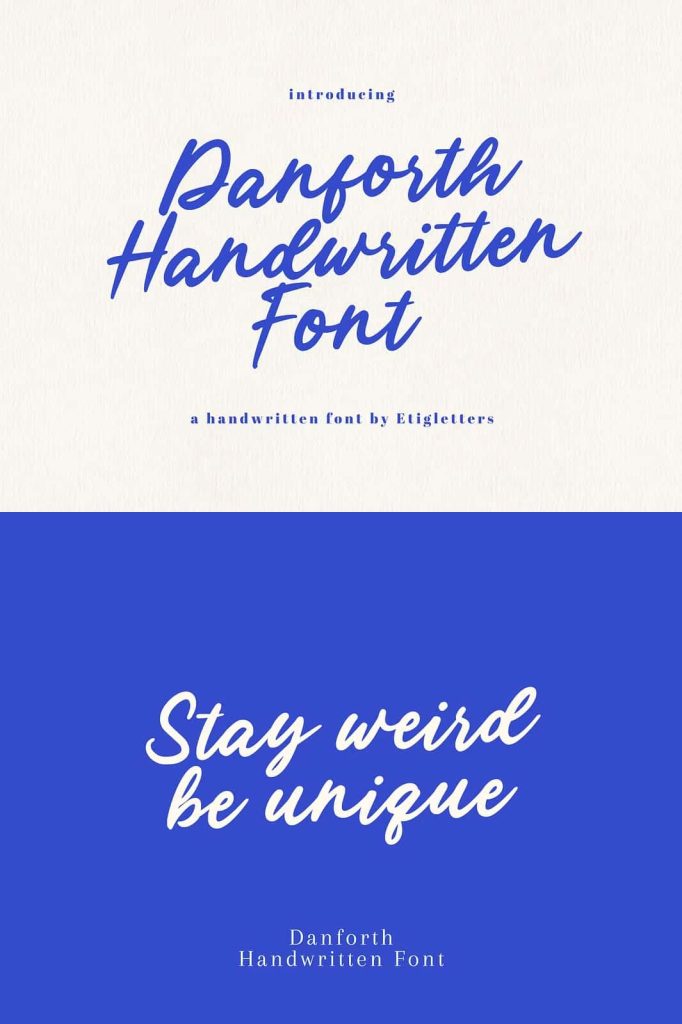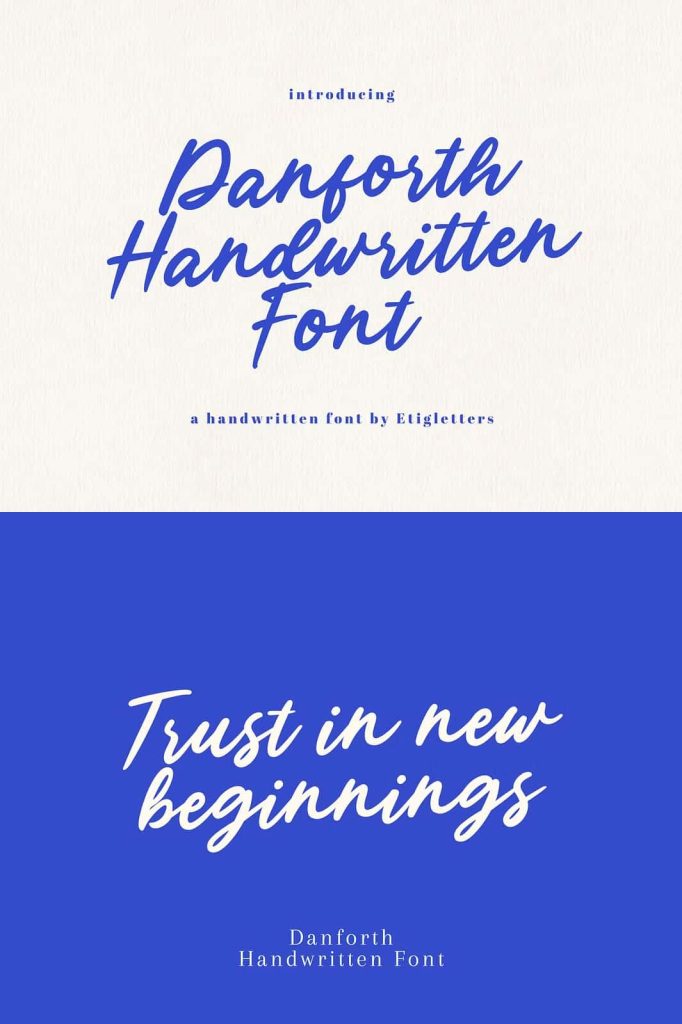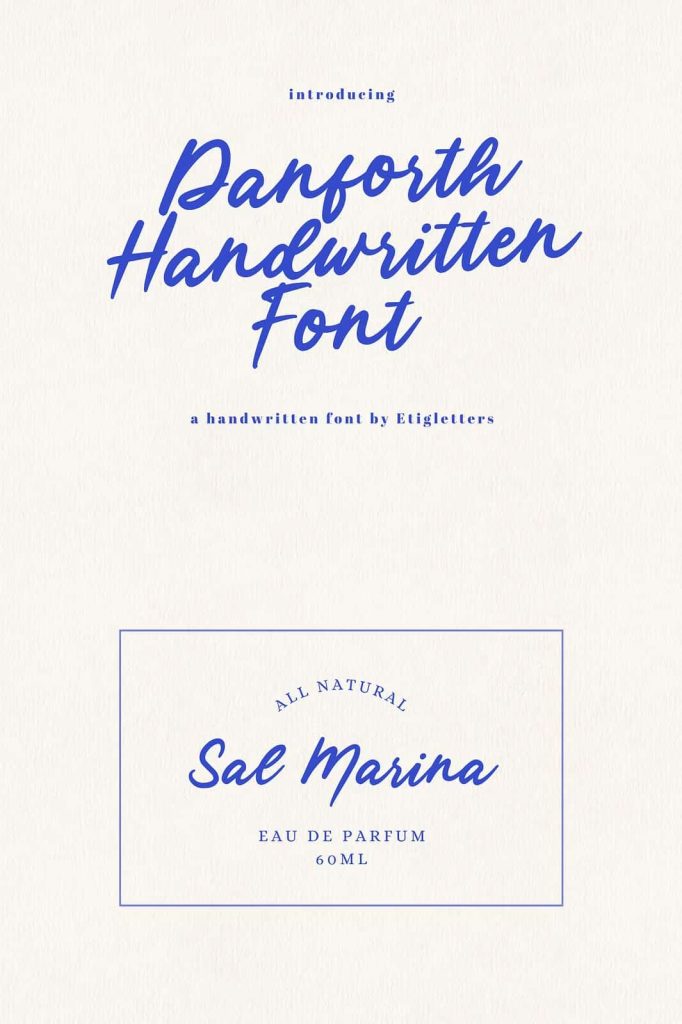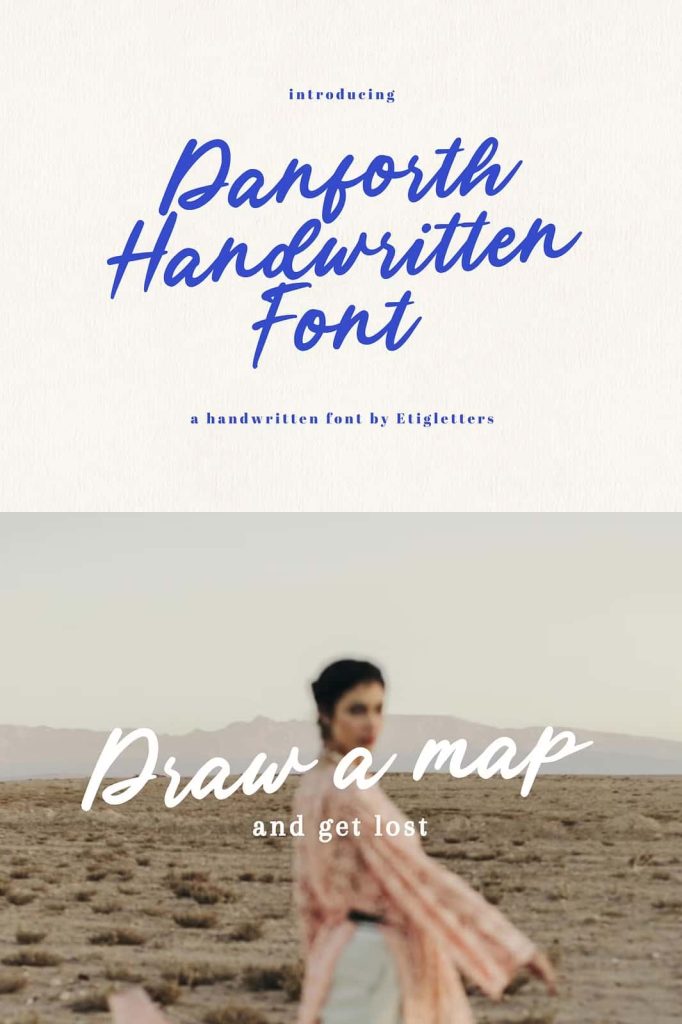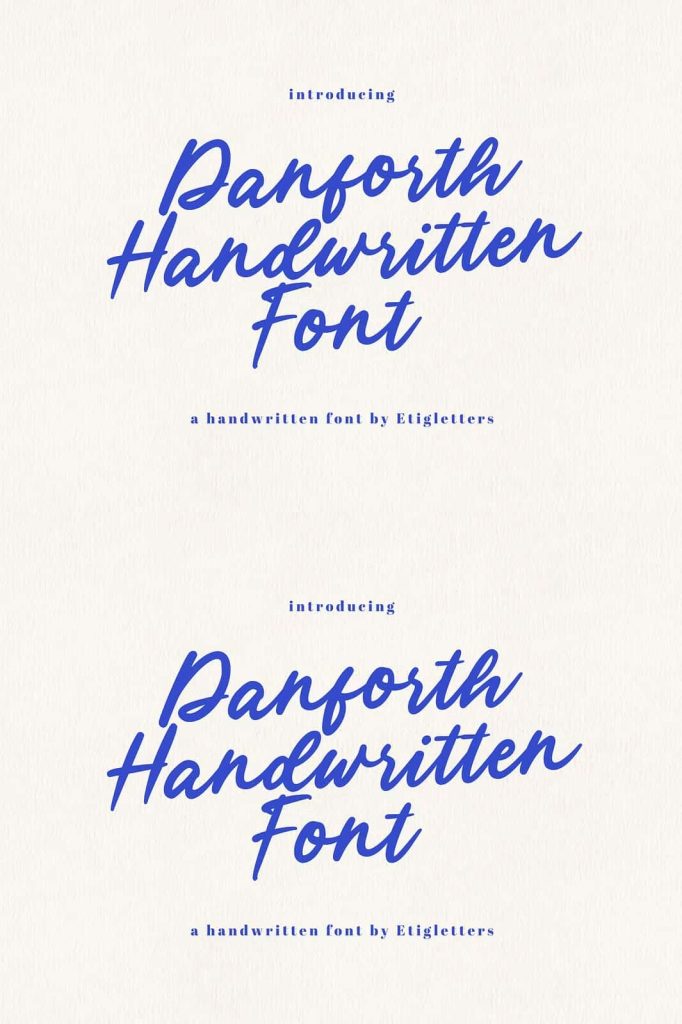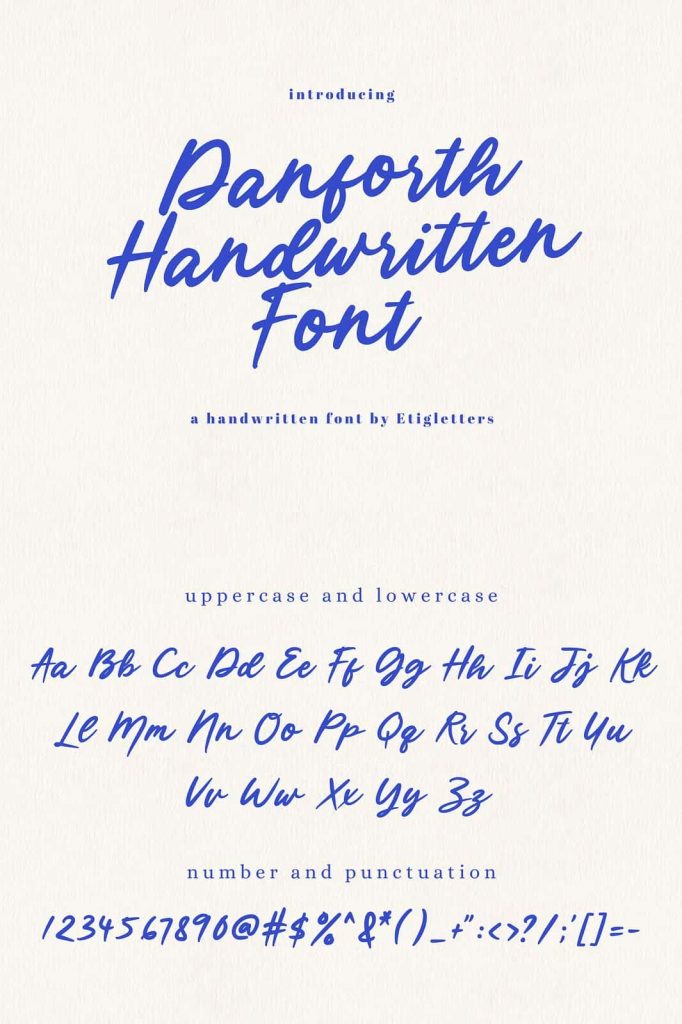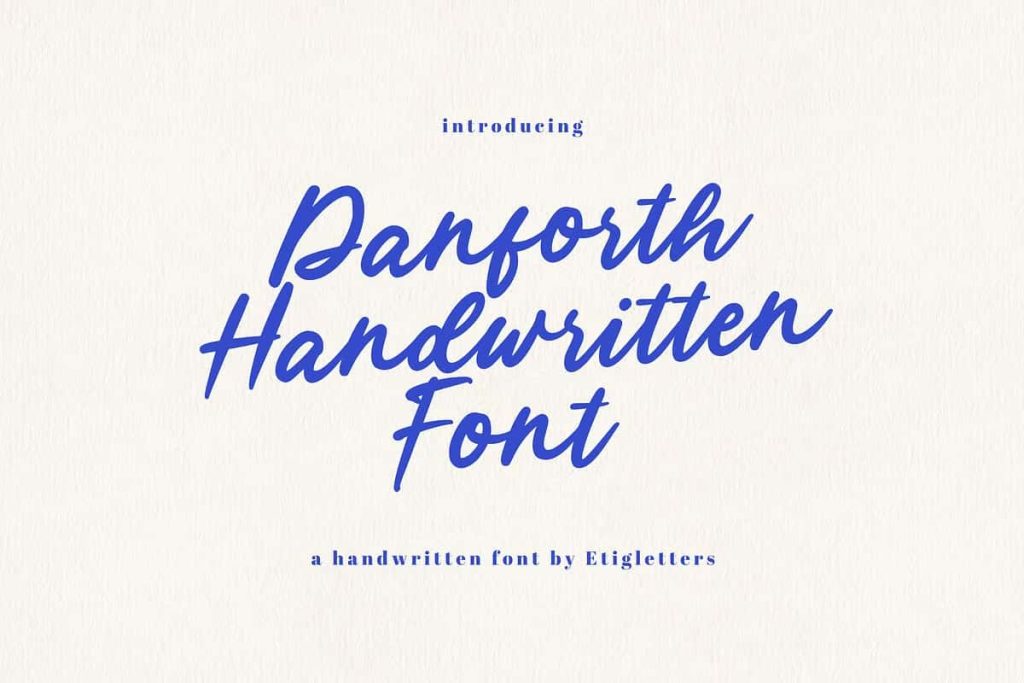
Introducing, Danforth Font – a beautiful handwritten font. Danforth Font can be used for various types of design needs such as wedding invitation, craft stuff, branding materials, promotional flyers, social media templates, t-shirt, and more.